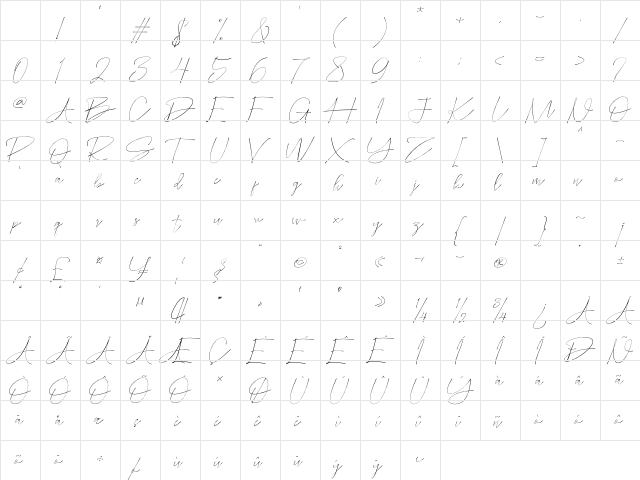
Porbhesa Signature Regular
Designer: Jada Akbal
Design Context for Porbhesa Signature
Porbhesa Signature is a composed and adaptable typeface that performs quietly and consistently across a wide range of design contexts.